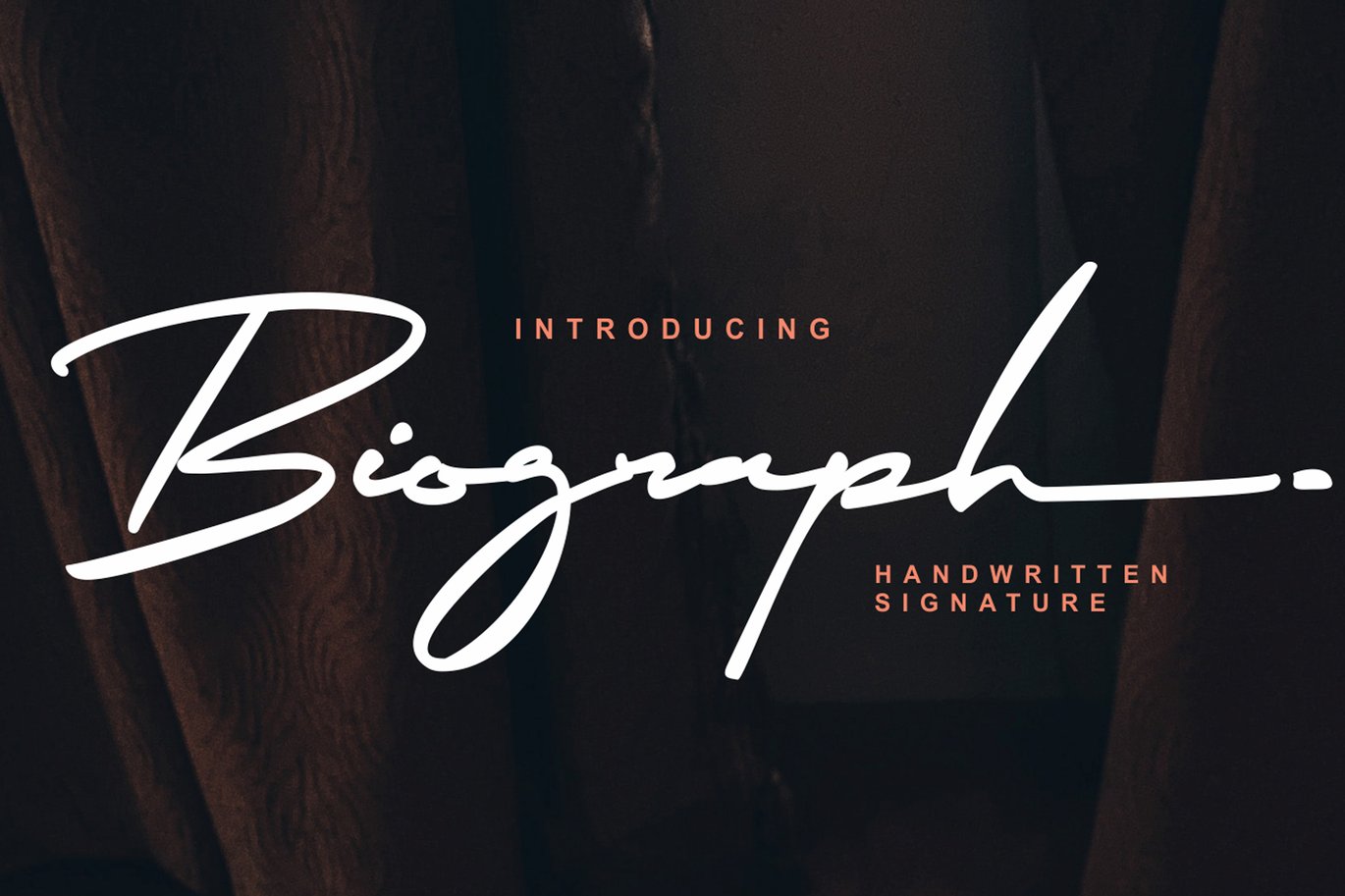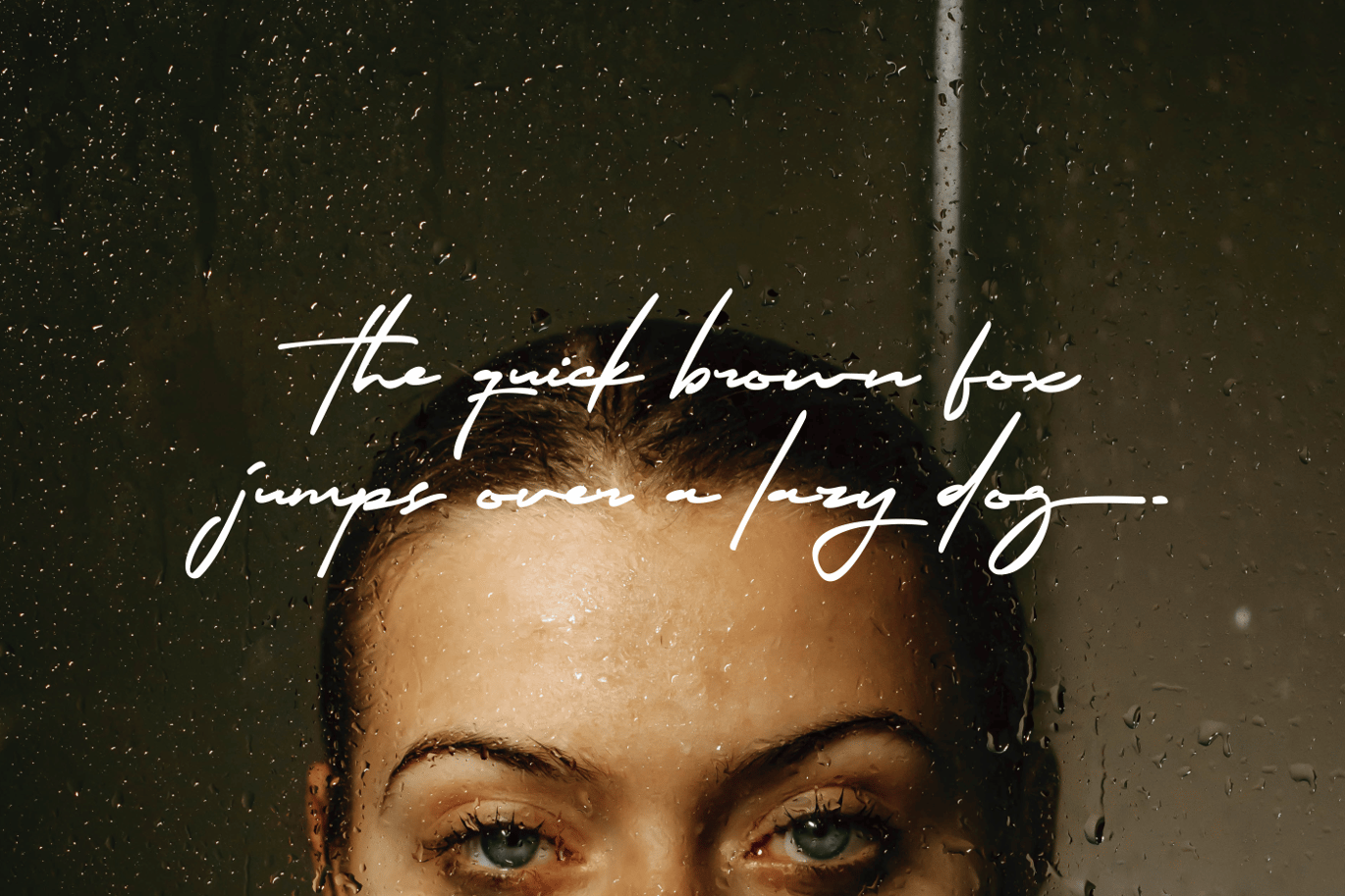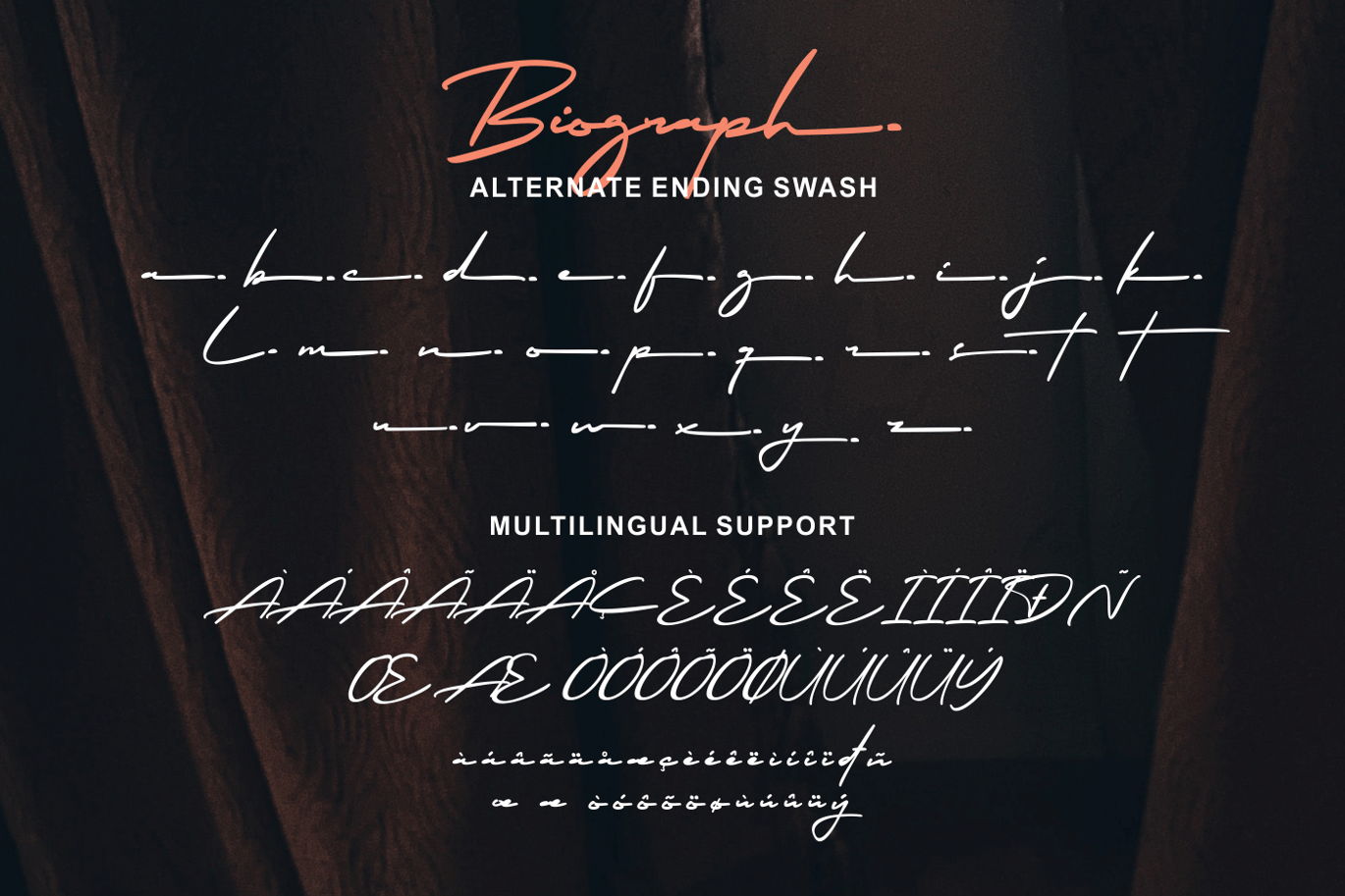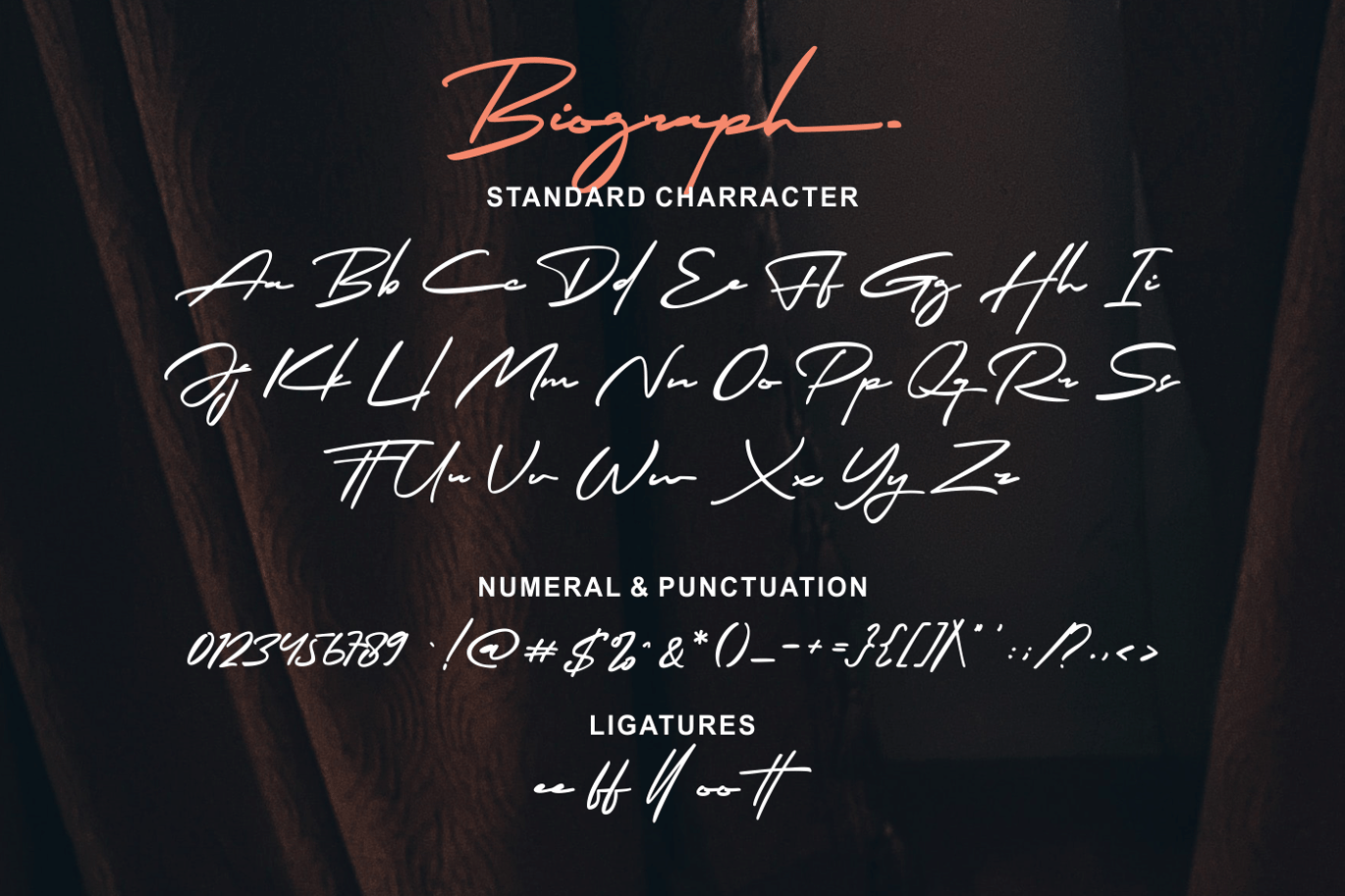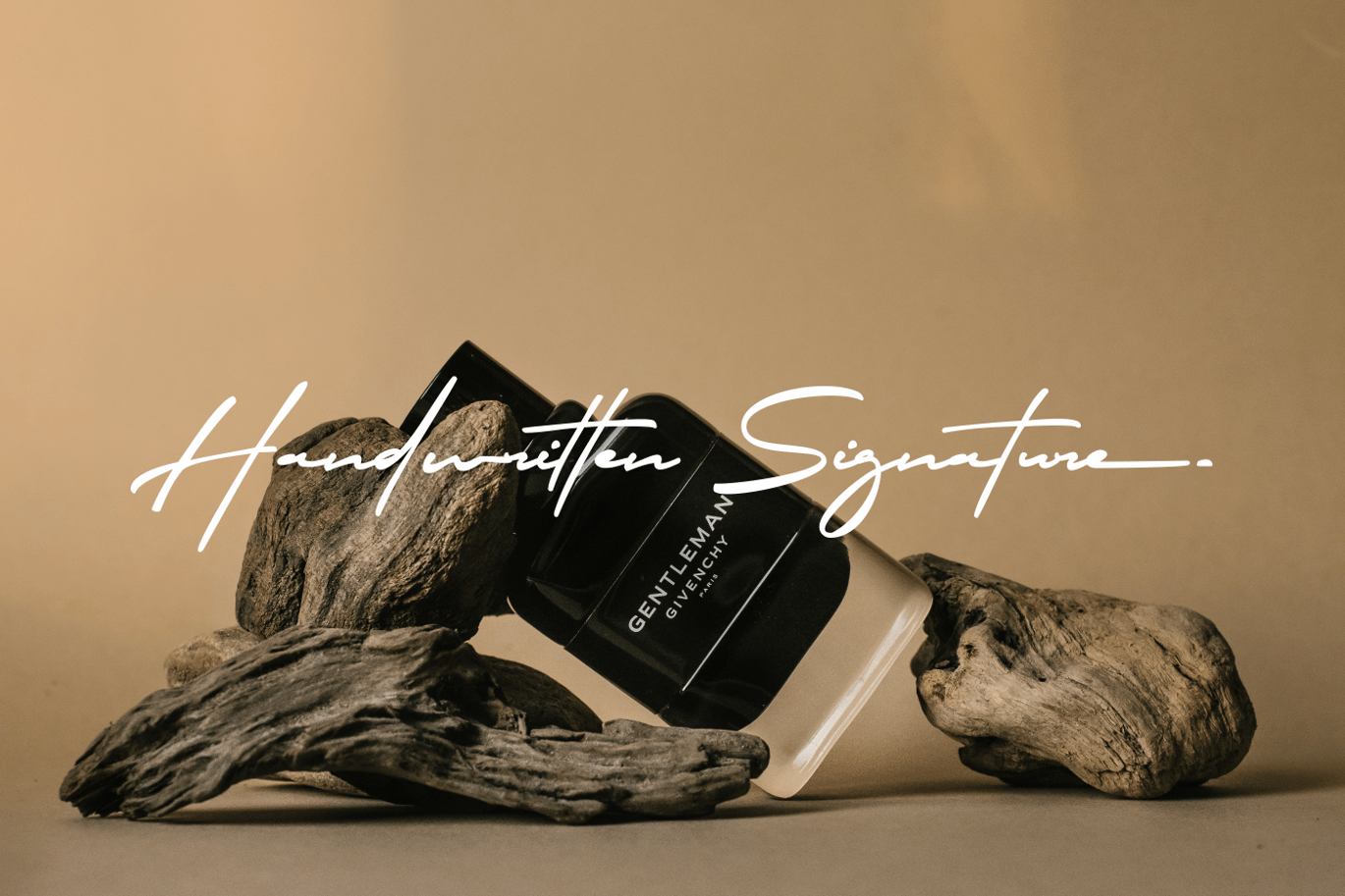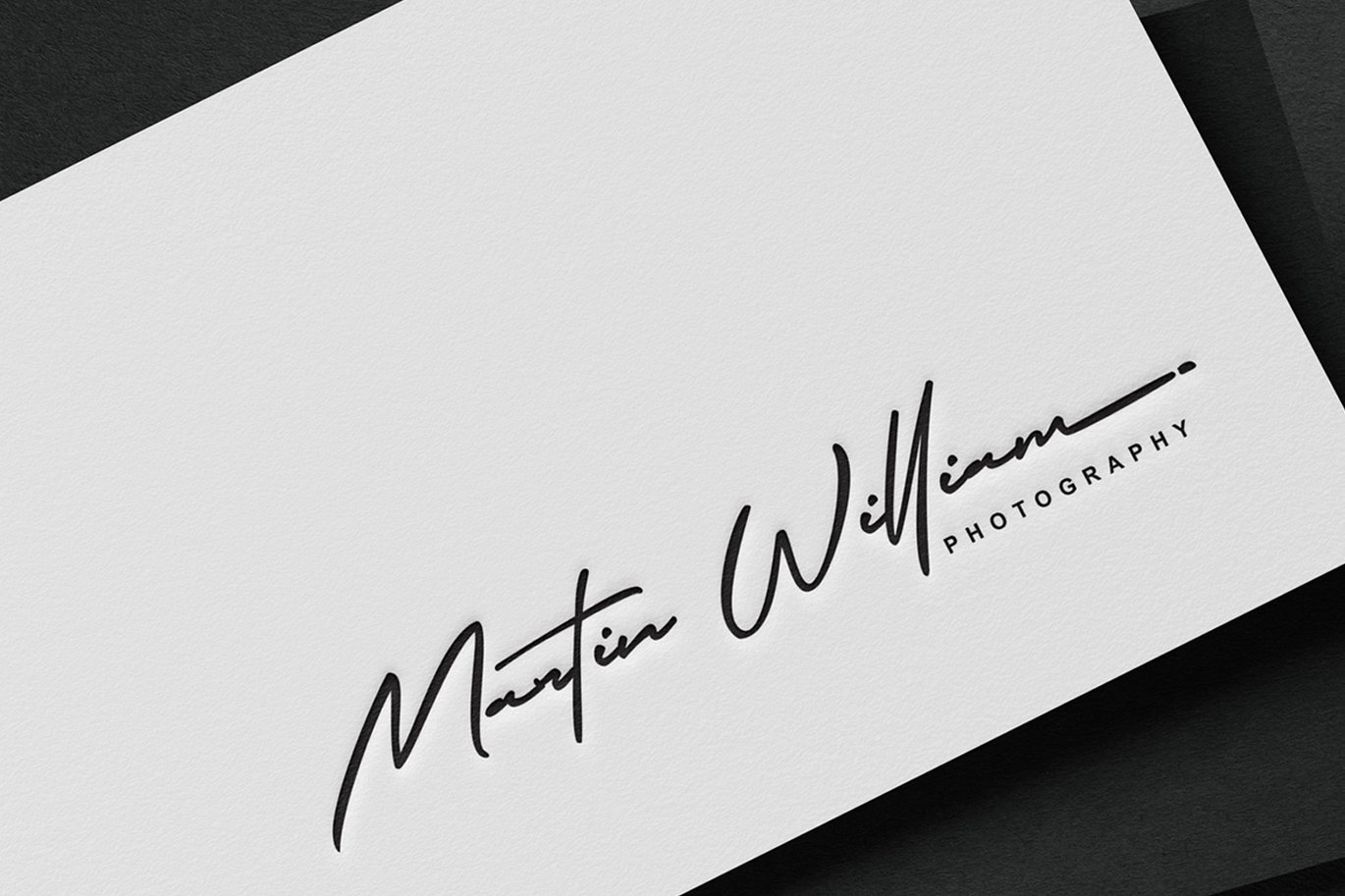
Biograph Signature Font
Biograph is a signature font, feels equally charming and elegant. This stunning handwritten font is a stylish homage to classic calligraphy. Fall in love with its authentic feel and use it to create gorgeous wedding invitations, beautiful stationary art, eye-catching social media posts, and cute greeting cards.